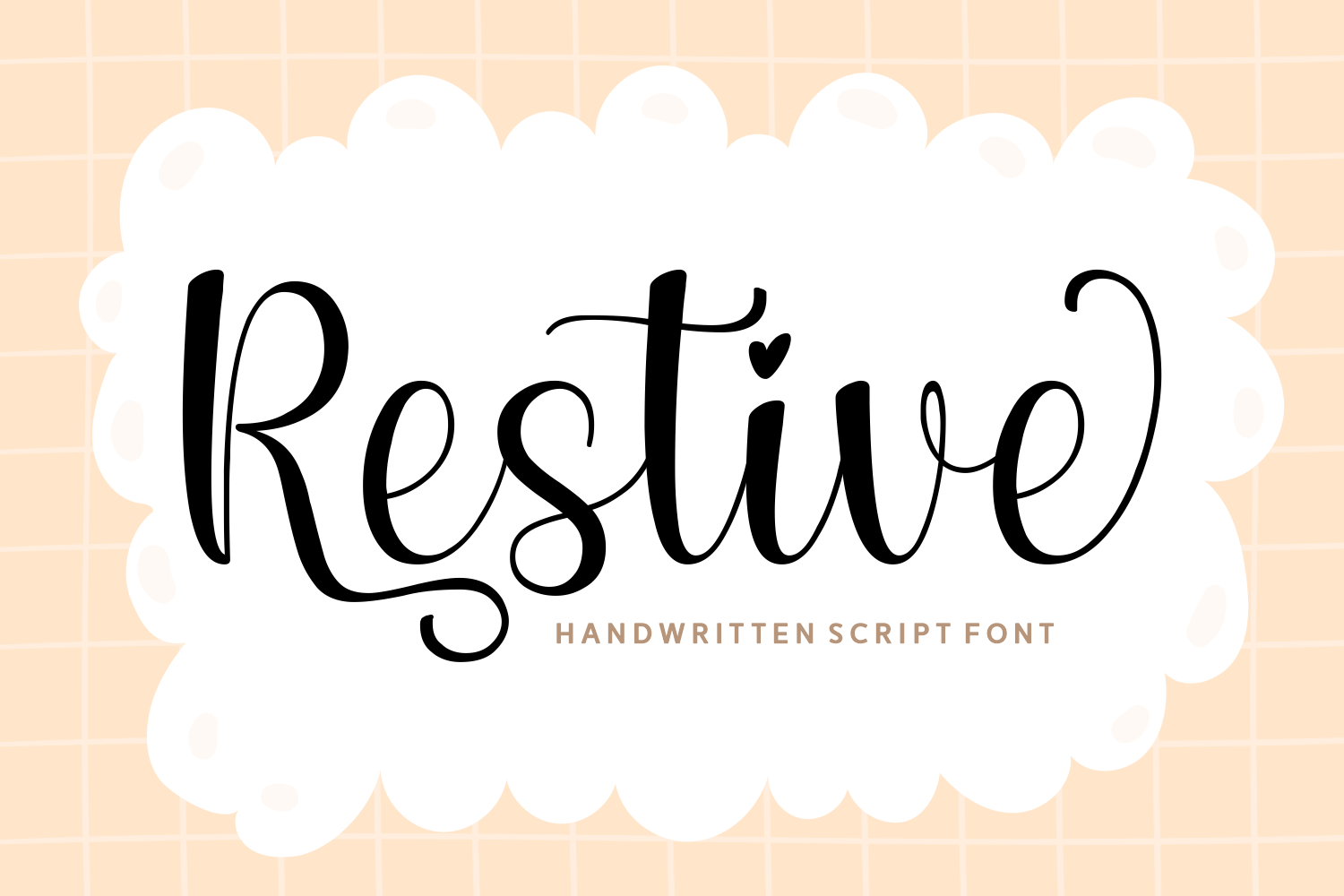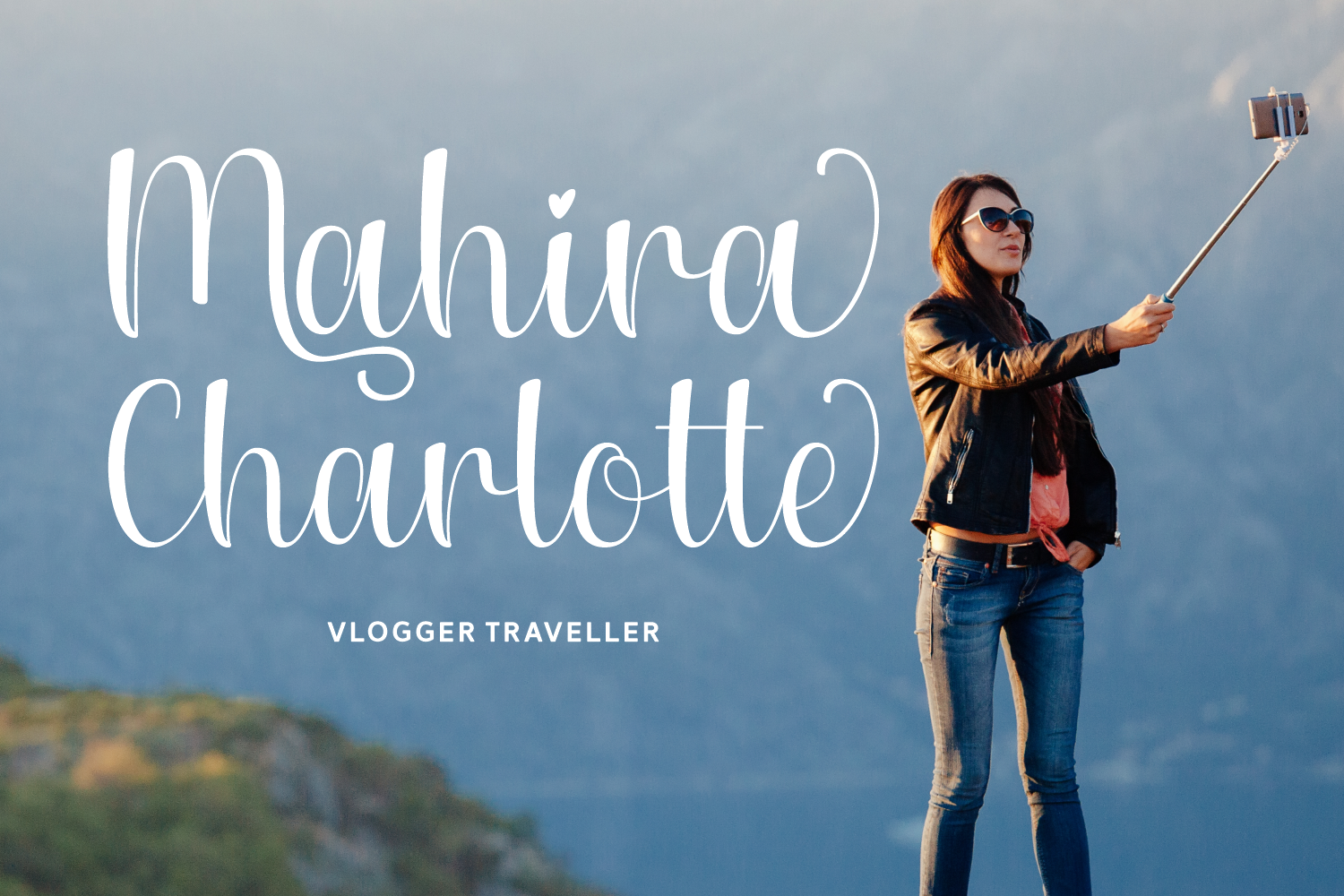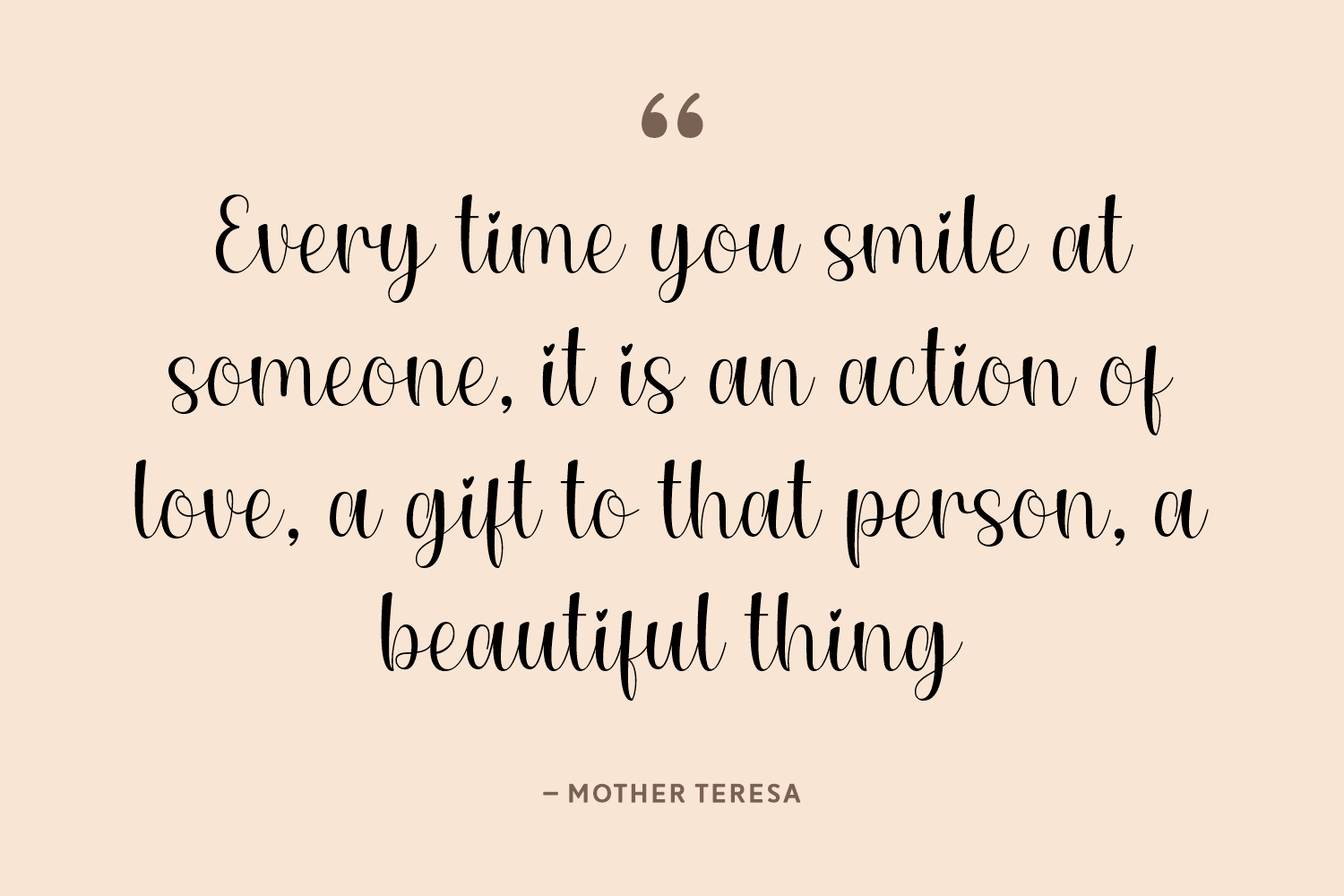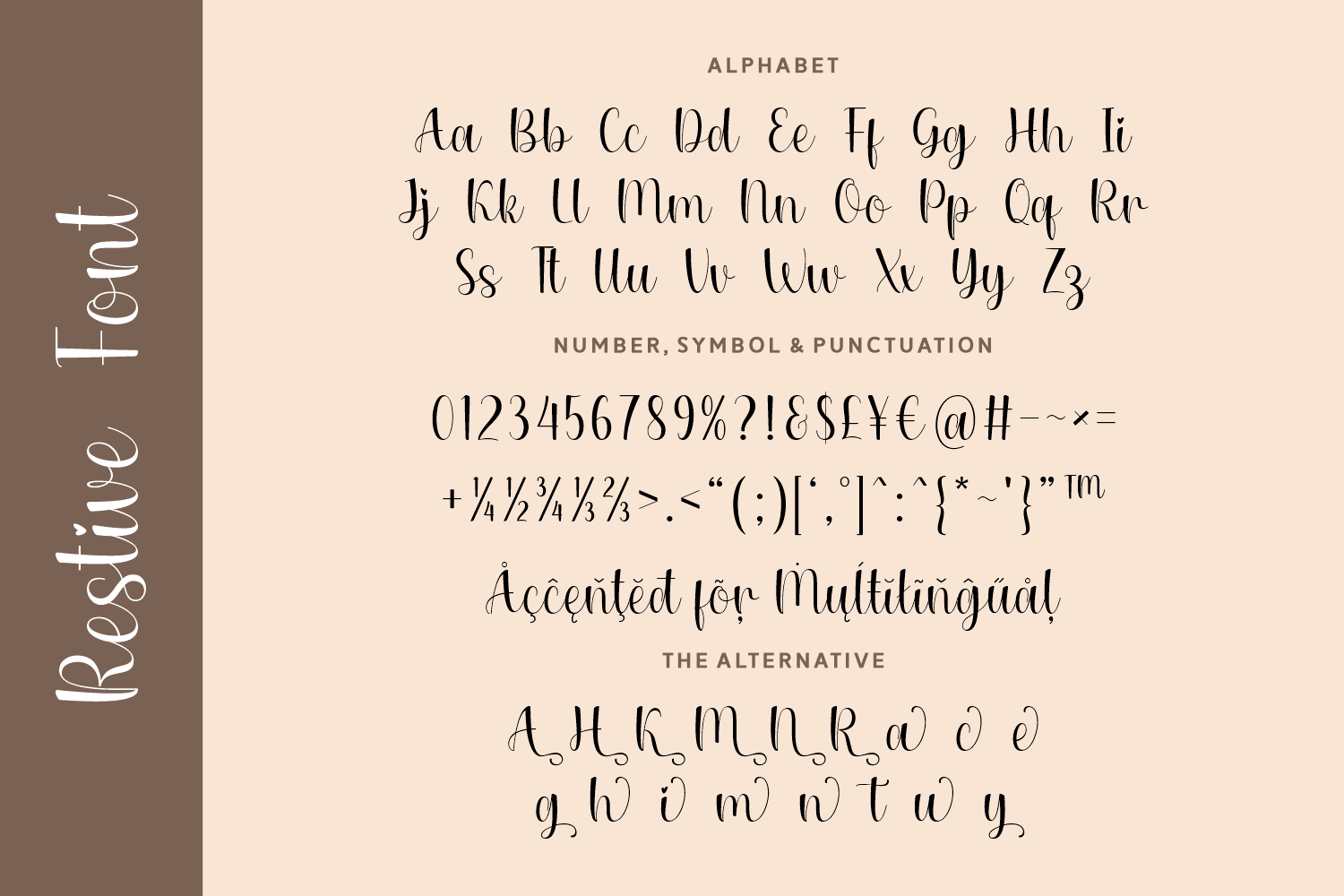
Restive is a beautifully flowing handwritten script font designed to bring warmth and personality to your creative projects. Its soft curves, tall ascenders, and signature heart detail on the "i" create a sweet, approachable style that's both whimsical and polished.